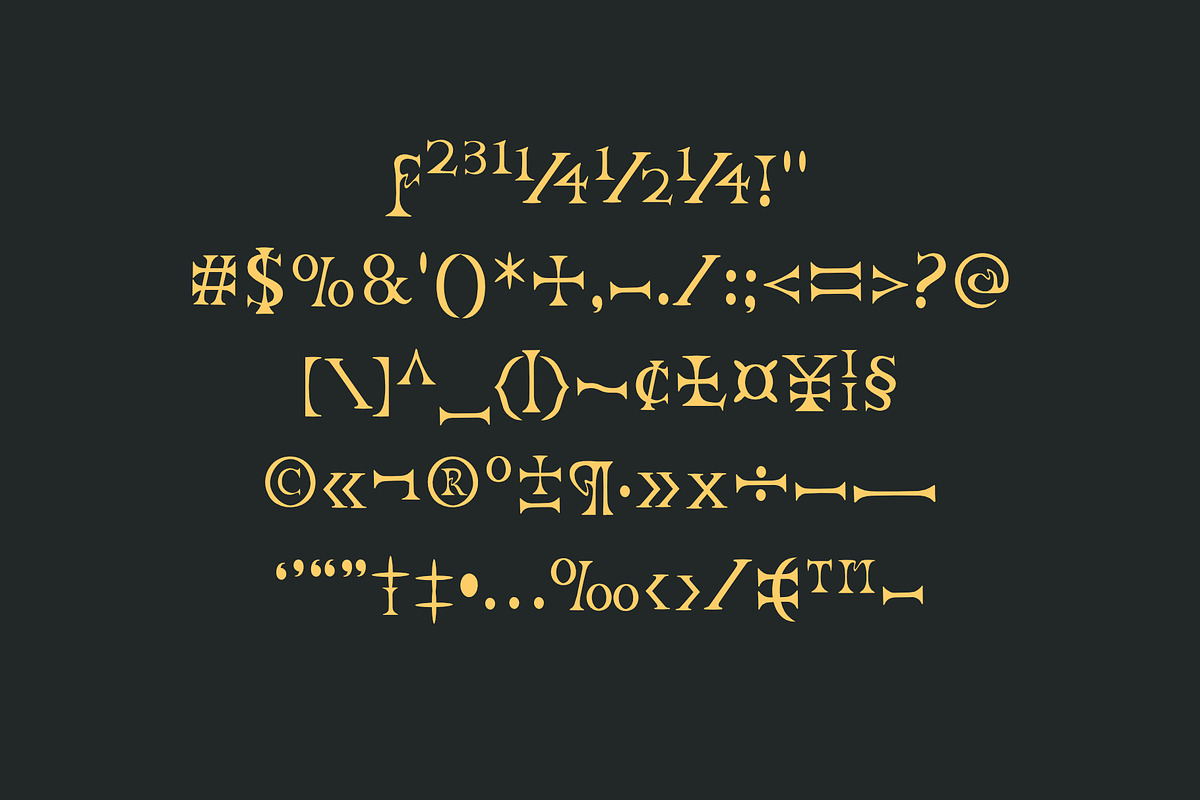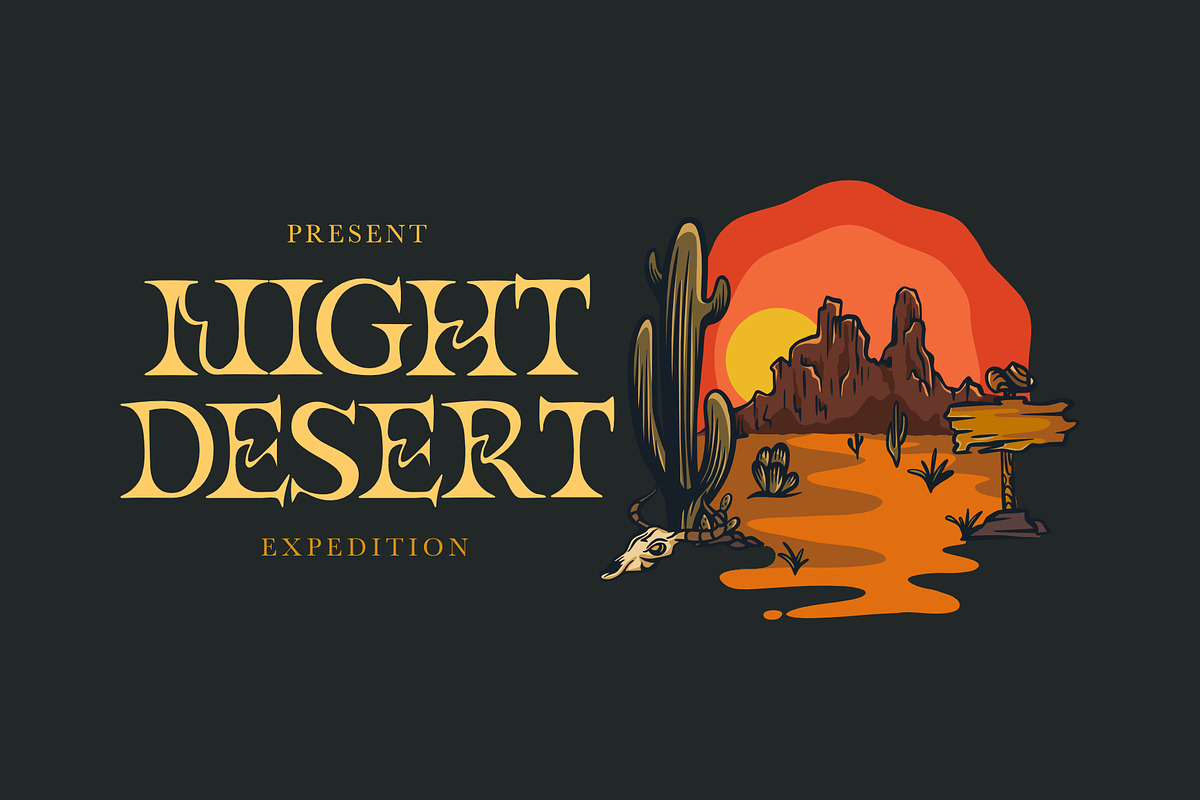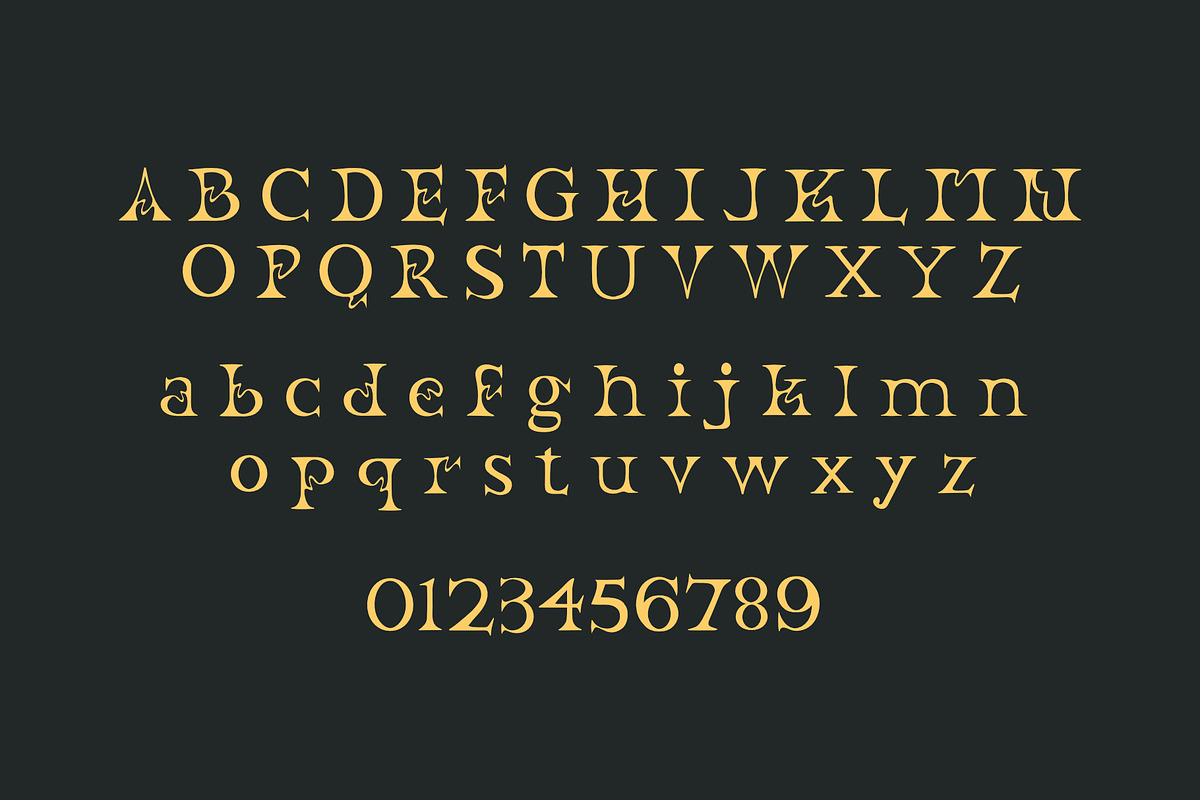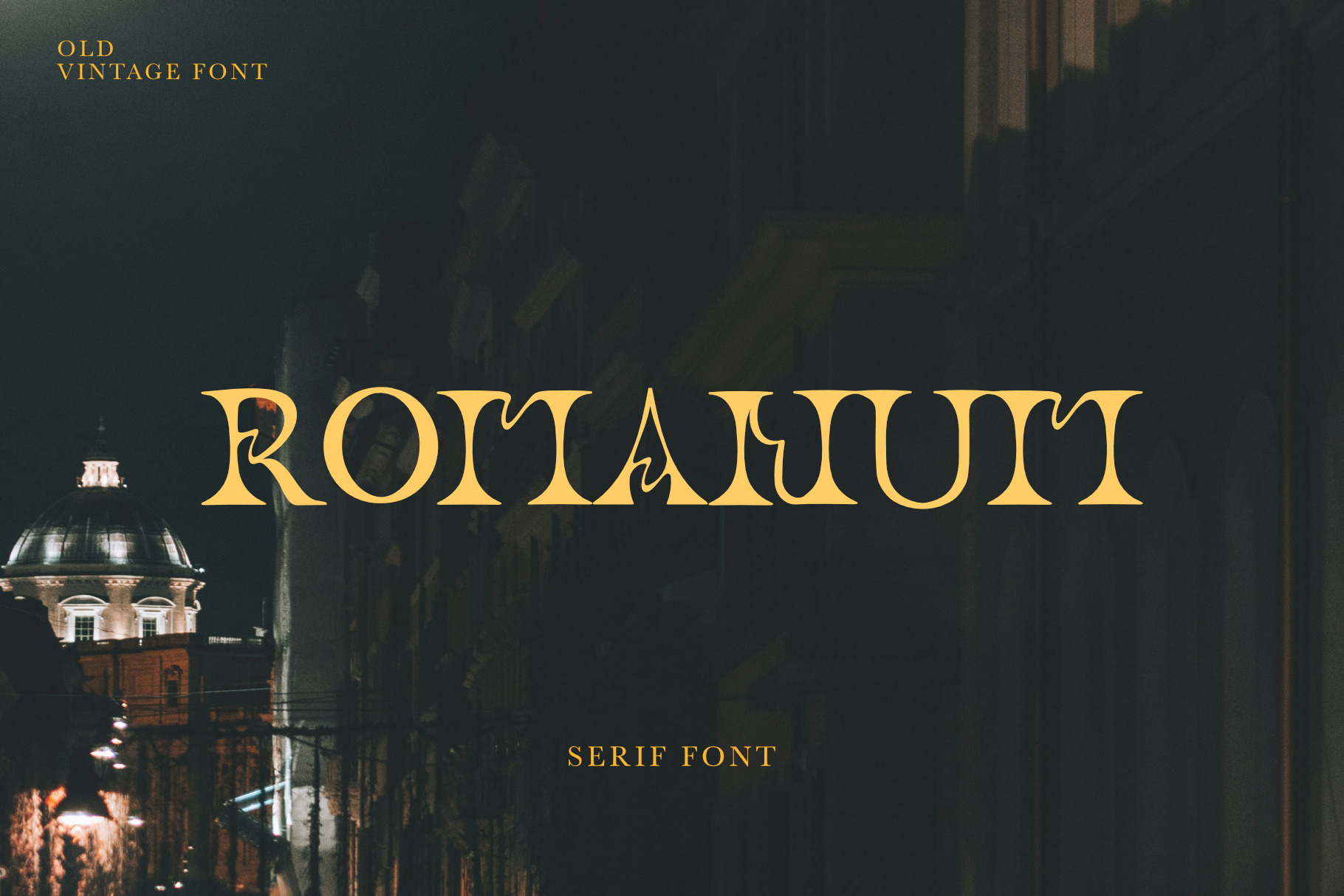
ROMANUM Serif display font
Romanum font serif modern. Its modern design, crafted with classic proportions and quaint serifs, exudes elegance and refinement. Geometric flourishes add a touch of mystery and depth. Perfect for logos, invitations, book covers, spiritual quotes, posters, and anything that needs to convey a sense of intrigue, intellect, and style.